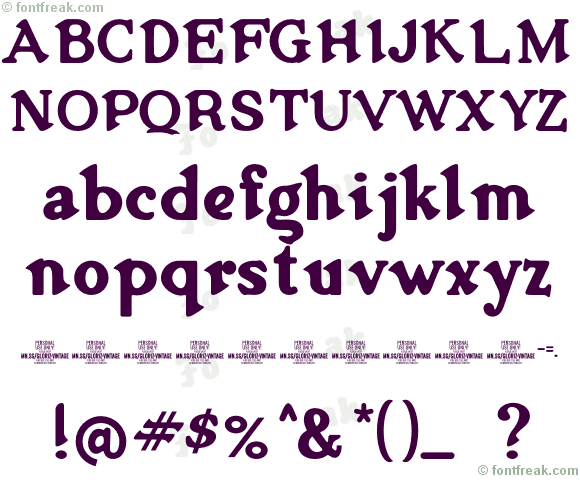
Gloriz Vintage PERSONAL USE Regular
About Gloriz Vintage PERSONAL USE Regular
The Gloriz Vintage PERSONAL USE Regular font by Mans Greback is a charming display typeface that beautifully captures the essence of retro design. This font falls into the decorative category, featuring a distinctive vintage style that effortlessly evokes nostalgia. With its playful yet elegant curves, Gloriz Vintage showcases a medium stroke weight, providing a balanced contrast that enhances readability while maintaining a touch of whimsy. The spacing is thoughtfully designed, ensuring that each letter flows seamlessly into the next, making it ideal for eye-catching headlines and titles.
This versatile font is perfect for a variety of creative applications. It shines in wedding invitations, where its unique character can add a personal touch that resonates with love and celebration. Additionally, Gloriz Vintage is a fantastic choice for movie posters, as it can evoke a sense of nostalgia and retro flair that attracts audience attention. Restaurant menus can also benefit from this font, offering an inviting ambiance that reflects the establishment's theme. Content creators will find it invaluable for social media graphics, where distinctive typography is key to standing out in a crowded digital landscape.
Targeting graphic designers, small business owners, and content creators alike, the Gloriz Vintage PERSONAL USE Regular font free download provides an accessible option for those looking to infuse their projects with a vintage charm. This font stands out not only for its aesthetic appeal but also for its versatility across various design contexts. By choosing Gloriz Vintage, you’re opting for a typeface that not only enhances visual communication but also adds a layer of personality and nostalgia to your work.